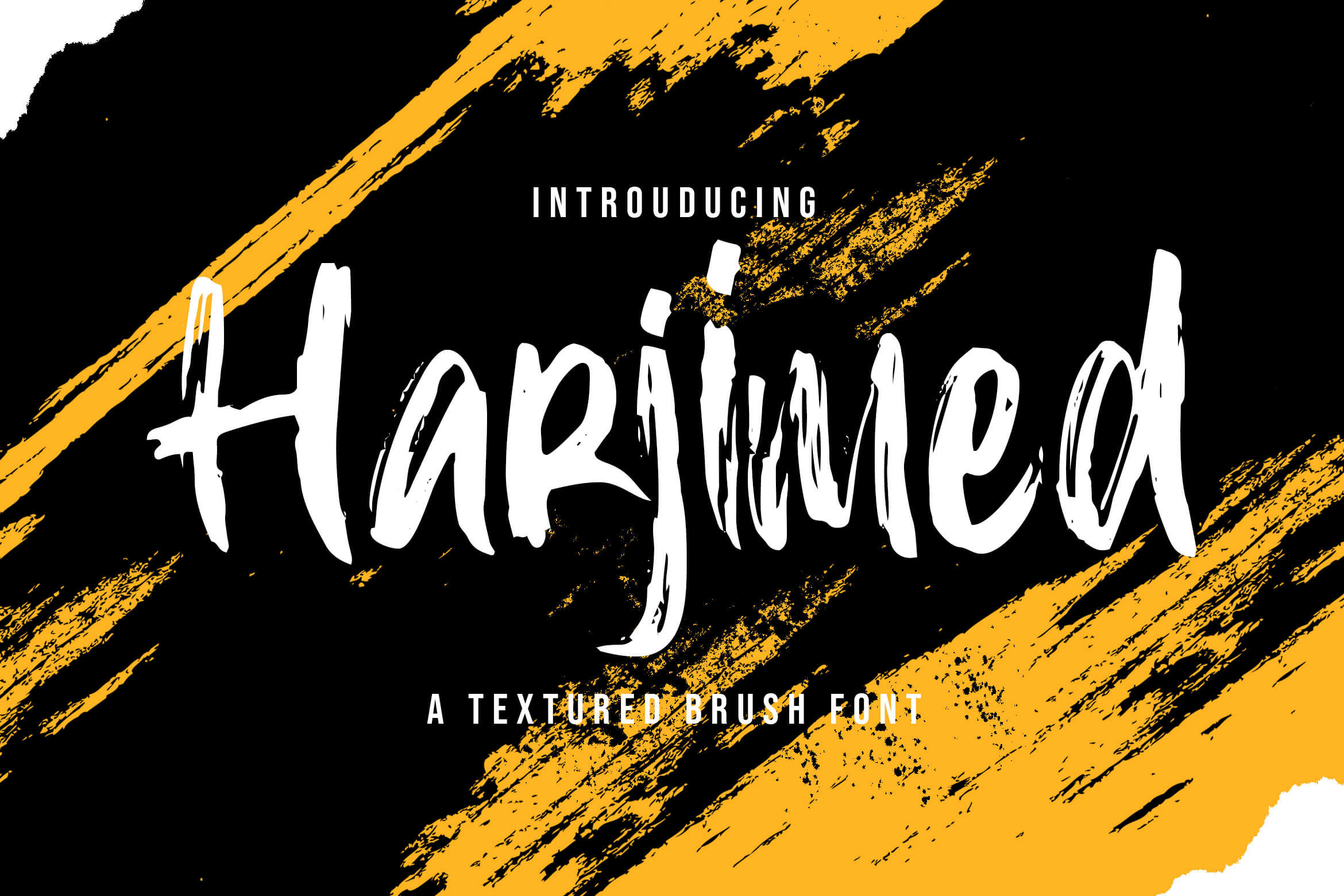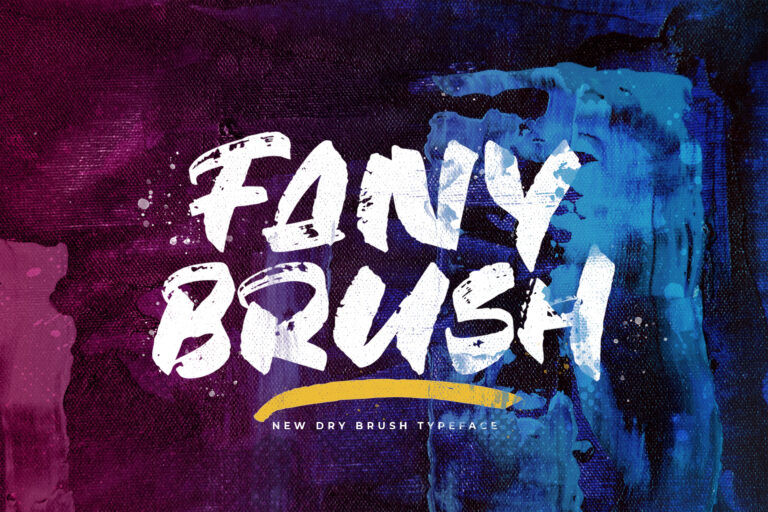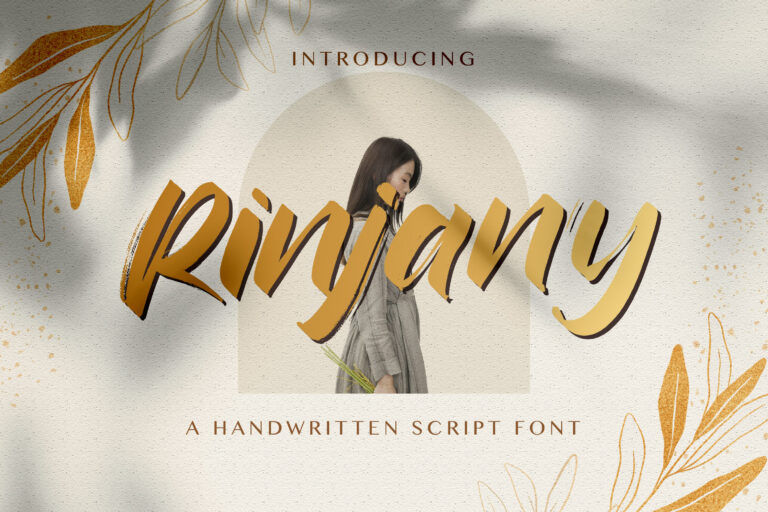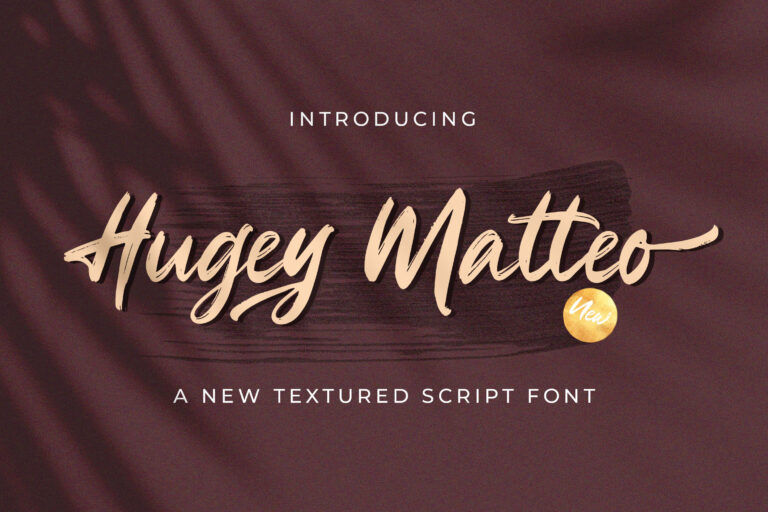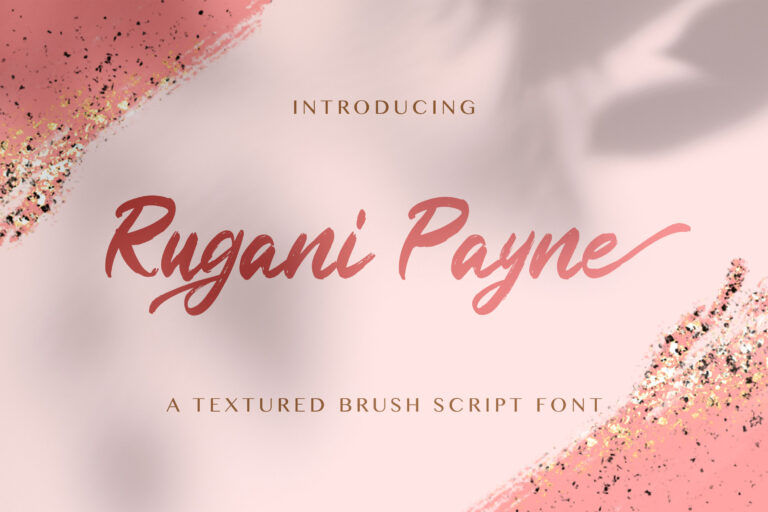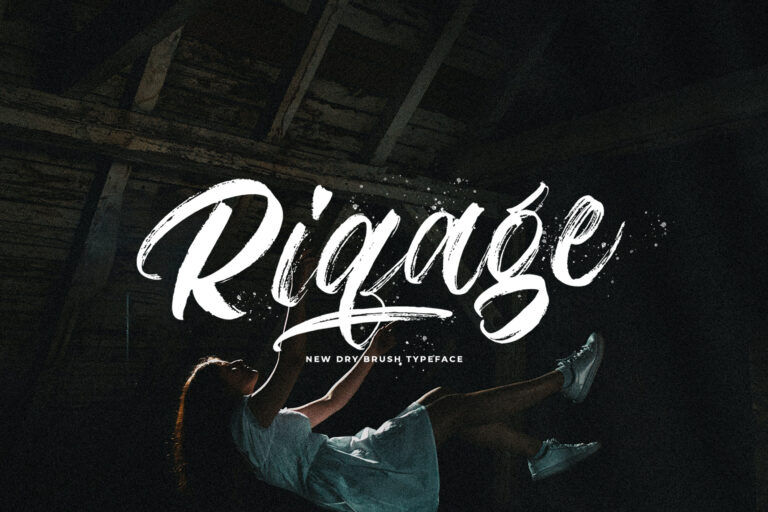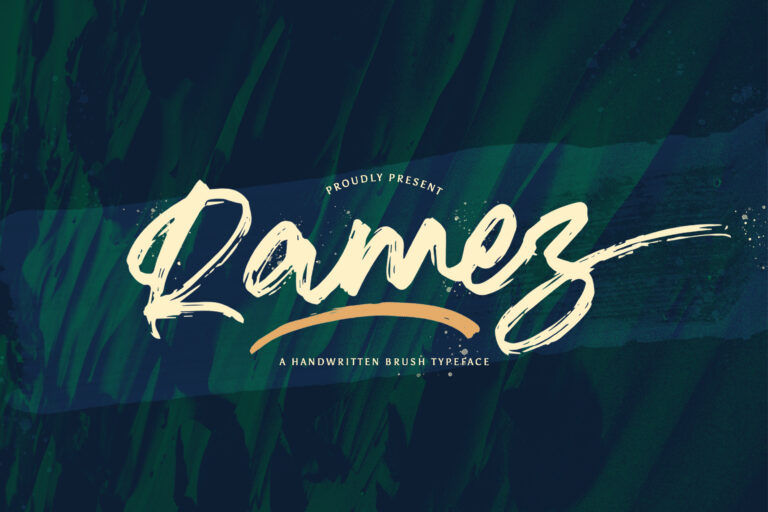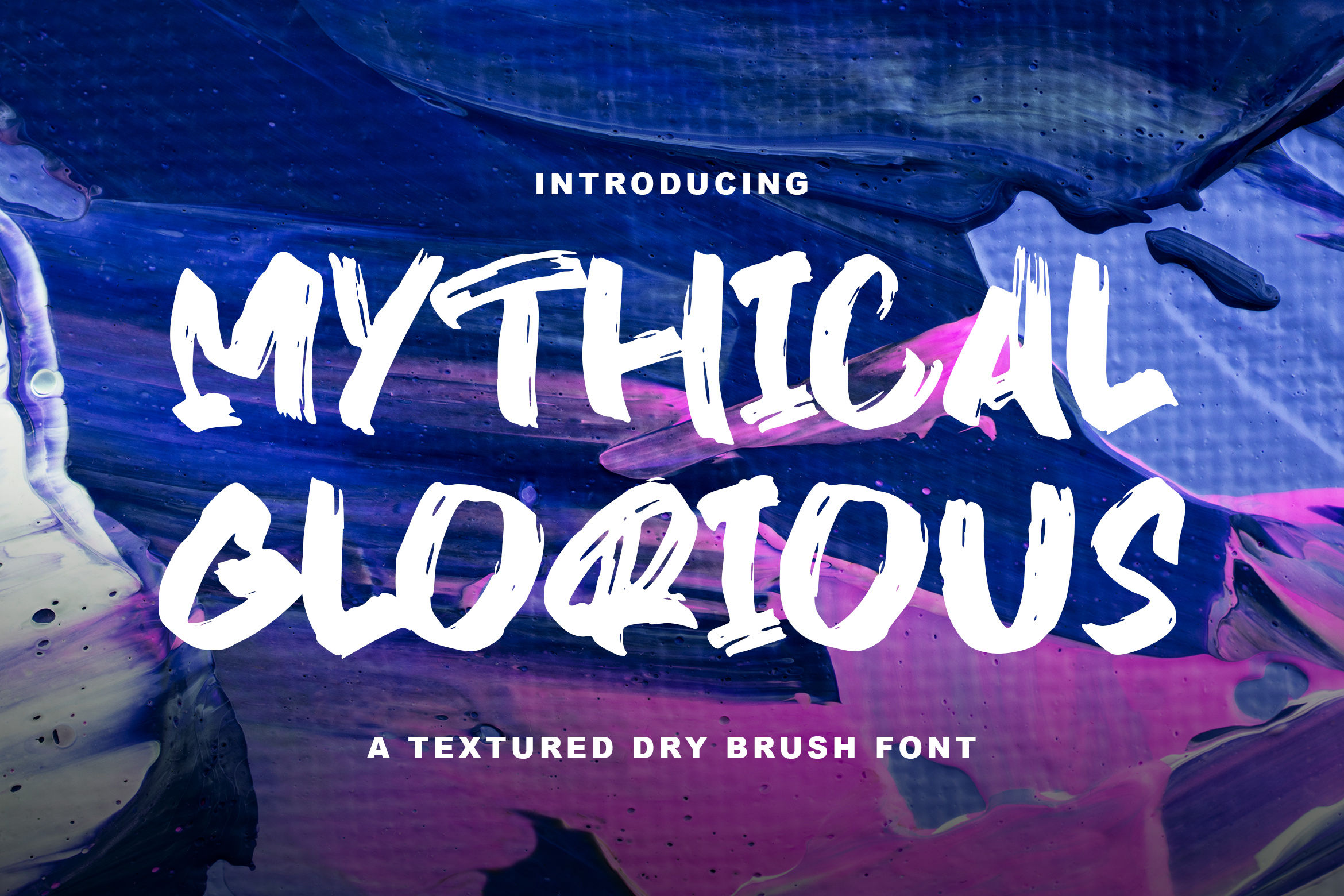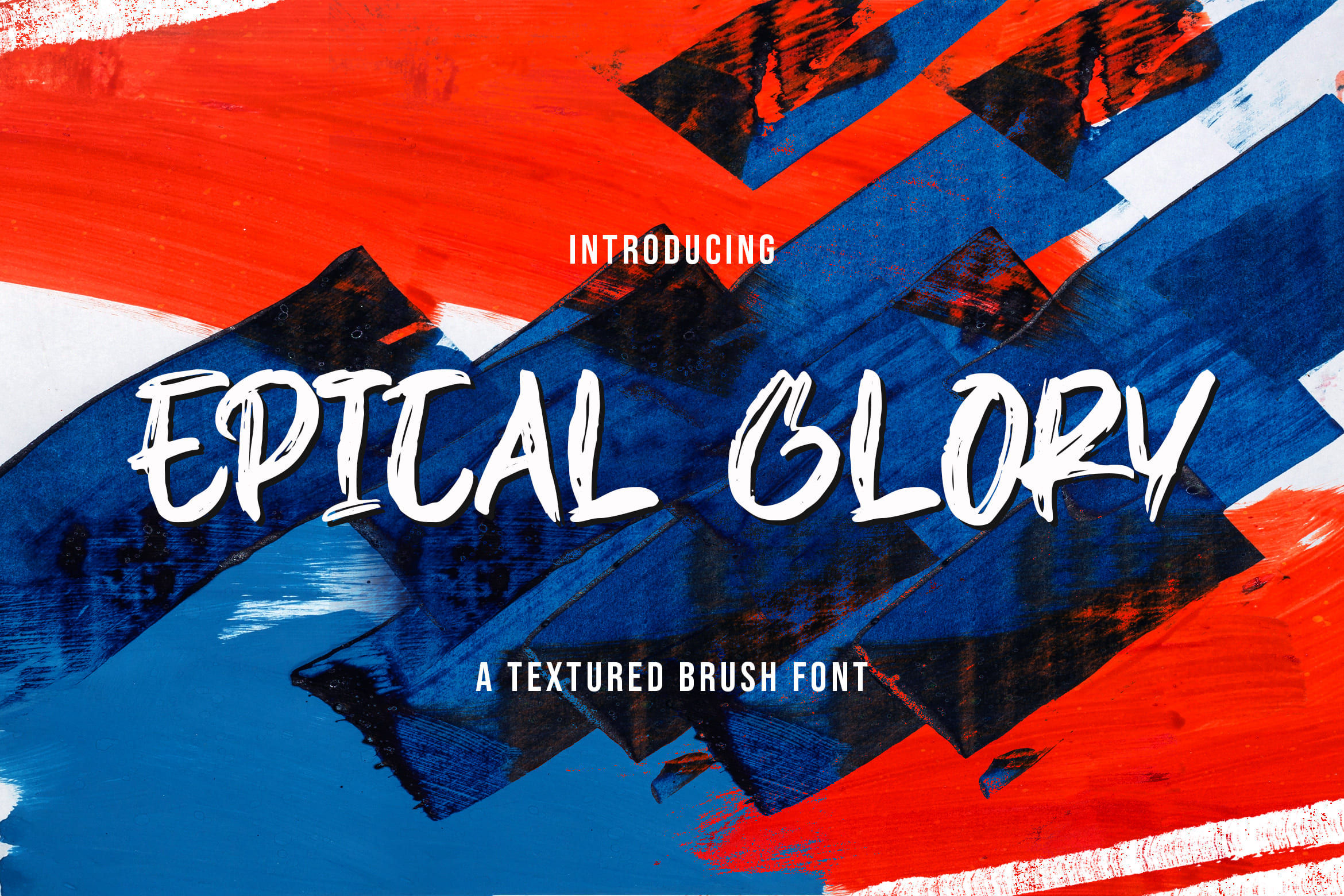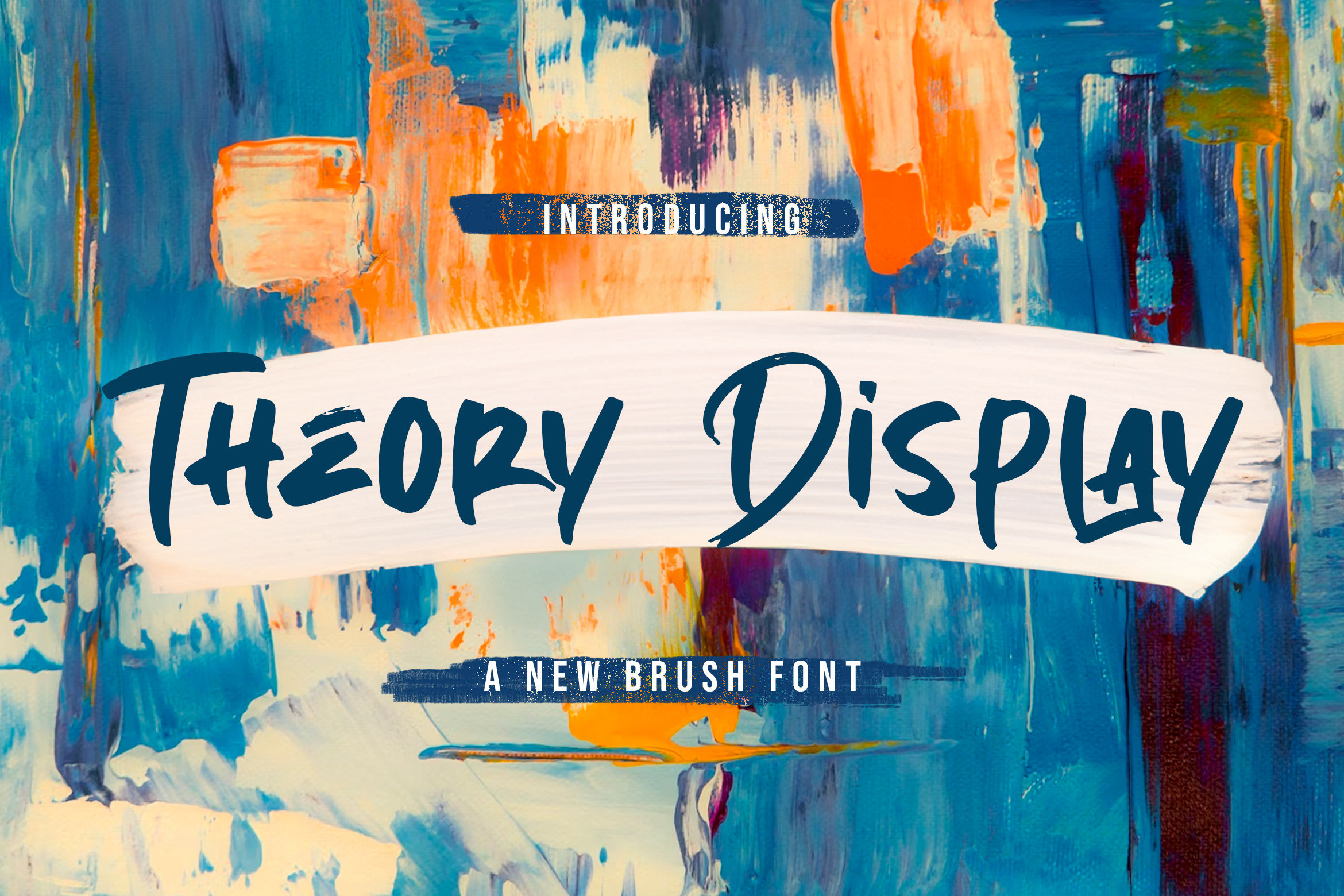
20 Sketchy Font Picks for Designs with Hand-Drawn Aesthetics
According to Worldmetrics, around 72% of websites anywhere use custom fonts to make their brands more eye-catching. To do the same, you can use sketchy font designs like the following to make your brand look more intriguing.
Key Takeaways:
• Sketchy fonts add a handmade, creative look that helps brands stand out and feel more memorable.
• Different sketchy fonts suit different industries, from fashion and food to gaming, sports, and lifestyle brands.
• Choose a sketchy font that matches your brand personality to create a stronger and more consistent visual identity.
20 Sketched Font Design Recommendations
1. Harjimed
Harjimed is about bold, irregular brushstrokes that feel like ink dragged across rough paper in one confident movement. This font suits logo design and brand identities that need a handmade visual edge.
2. Blackwell
Blackwell pairs heavy blackletter visual weight with rough, textured brushstrokes that feel genuinely hand-roughed and gritty throughout. Use this font when your brand needs a dark, commanding personality without sacrificing warmth.
3. Jeany Gifary
If you need a fluid, feminine energy for the textured brush category with decorative curves, then Jeany Gifary is your pick. It works beautifully for boutique branding, beauty packaging, and wedding stationery that needs elegance.
4. Dragon Knight
Those who want a dramatic impact with sharp, angular brushstrokes that feel battle-worn can go with Dragon Knight. As such, games and fantasy brands will find this sketchy font a compelling choice.
5. Maverik
Maverik takes the sketched, dry-brush approach to an extreme with letterforms that look like ink ran out completely mid-stroke. This weathered quality makes it fit for vintage western branding and rugged outdoor lifestyle companies.
6. Reginy
A blend of refined lettering proportions with a visible, handcrafted texture defines Reginy as a font. Artisan food brands and boutique wine labels are perfect mediums for this font type.
7. Famous Brush
Famous Brush is about mid-century American hand lettering culture that delivers bold strokes with just enough roughness. Resultingly, you can use it for vintage diner branding and heritage product labels that need an earnest tone.
8. Amy Riyas
A lighter, more playful take on textured brush lettering with delicate strokes embodies what Amy Riyas is as a font. In this regard, fashion bloggers and lifestyle product designers can use this gentle, expressive lettering for their work.
9. The Junipes
The Junipes draws inspiration from outdoor adventure culture with earthy, organic brushstrokes that illustrate nature and rugged exploration. With that, the font is perfect for national parks merchandise and craft breweries with an outdoorsy visual personality.
10. Fany Brush
You can have a versatile textured hand that works equally well at large display sizes and in smaller decorative applications with the Fany Brush. Its balanced stroke thickness gives designers room to experiment across posters and social media typography.
11. Rinjany
Rinjany brings energetic, expressive brushwork to the table with letterforms that feel spontaneous and readable at headline sizes. Because of these qualities, it’s perfect for independent fashion labels.
12. Higuey Matteo
Higuey Matteo is a sketchy font with an editorial approach to the textured brush format with proportions that feel designed for sophisticated brand collateral. You can use it for lifestyle magazines, design studios, and high-end fashion labels.
13. Rugani Payne
Want elegant, artistic vibes, pairing fluid, sketch-like, and textured strokes with a chic display presence? Then Rugani Payne is there to help you. It’s perfect for luxury beauty brands and lifestyle businesses that want hand-painted typography.
14. Riqage
Riqage sharpens the typical brush silhouette with angular cuts and a pencil-sketch font quality. When you need to design streetwear labels and gaming brands, you can use the font for bold and unconventional looks.
15. Ramez
You can have letterforms with a textured surface that conveys confidence and craftsmanship in Ramez. Resultingly, barber shops and heritage menswear labels can use it for their branding.
16. Mythical Glory